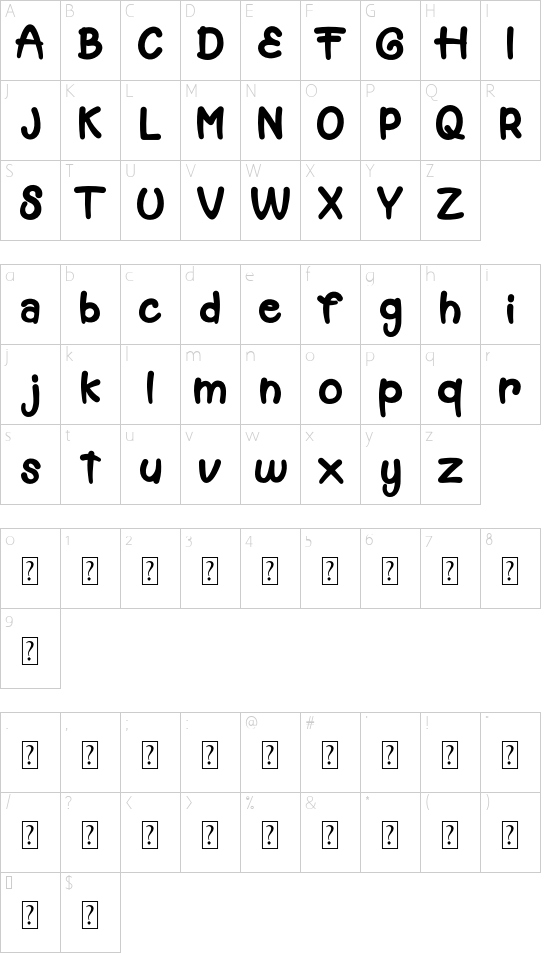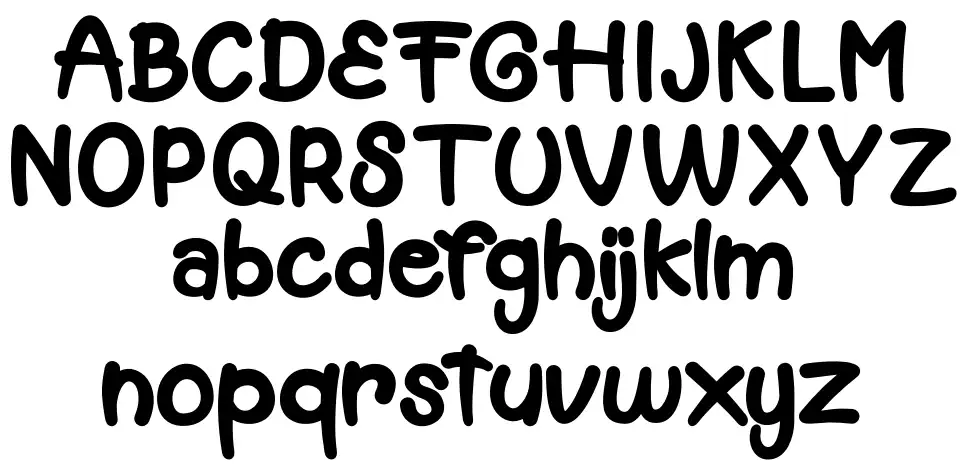
Muffin Cake Regular Font Free Download . muffin cake is the perfect font for all your fun designs. muffin cake is a sweet and charming handwritten font, full of love! Muffin cake is a free font for personal use created by raditya putra. get your very own free download of the muffin cake font, designed and created by rt studio. Click here to create a custom image with your own text. Available in both ttf and otf. looking for muffin cake font designed by raditya type studio? The muffin cake font was designed by raditya putra pratama. Download font free at fontriver. 131,476 downloads (14 yesterday) free for personal use. download free muffin cake demo regular font | muffin cake demo.otf (0 vote) download free fonts fancy fonts. muffin cake font download is available free from fontget. muffin cake by rt studio.
Muffin Cake font by Raditya Type Studio FontRiver Muffin Cake Regular Font Free Download muffin cake is a sweet and charming handwritten font, full of love! get your very own free download of the muffin cake font, designed and created by rt studio. muffin cake is the perfect font for all your fun designs. Available in both ttf and otf. Download font free at fontriver. looking for muffin cake font. Muffin Cake Regular Font Free Download.
Muffin Font Muffin Cake Regular Font Free Download font free at fontriver. muffin cake font download is available free from fontget. muffin cake by rt studio. get your very own free download of the muffin cake font, designed and created by rt studio. muffin cake is a sweet and charming handwritten font, full of love! Click here to create a custom image with. Muffin Cake Regular Font Free Download.
Lets Bake Muffins Font · 1001 Fonts Muffin Cake Regular Font Free Download muffin cake font download is available free from fontget. The muffin cake font was designed by raditya putra pratama. muffin cake is the perfect font for all your fun designs. Muffin cake is a free font for personal use created by raditya putra. muffin cake by rt studio. download free muffin cake demo regular font |. Muffin Cake Regular Font Free Download.
Muffin Cake DEMO font details Muffin Cake Regular Font Free Download font free at fontriver. looking for muffin cake font designed by raditya type studio? muffin cake font download is available free from fontget. muffin cake is a sweet and charming handwritten font, full of love! The muffin cake font was designed by raditya putra pratama. get your very own free download of the muffin cake. Muffin Cake Regular Font Free Download.